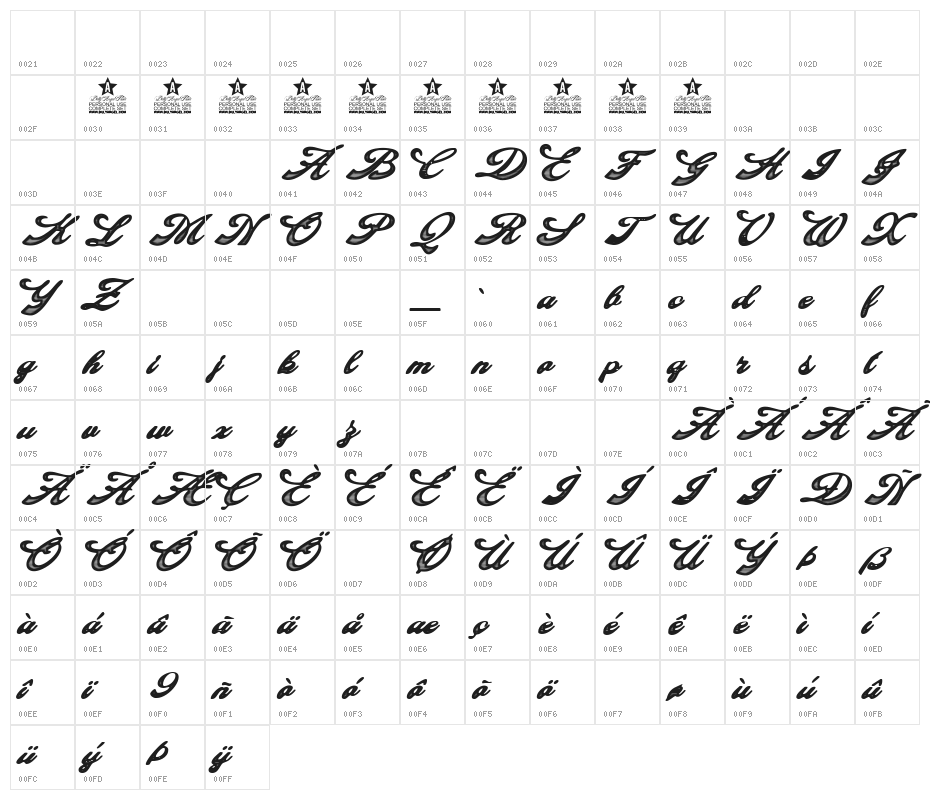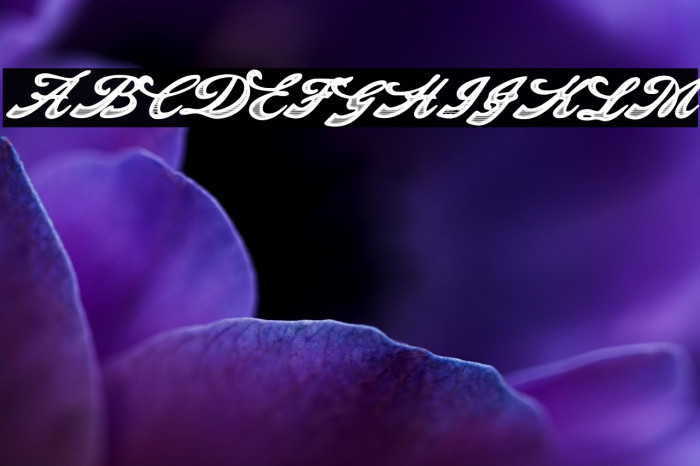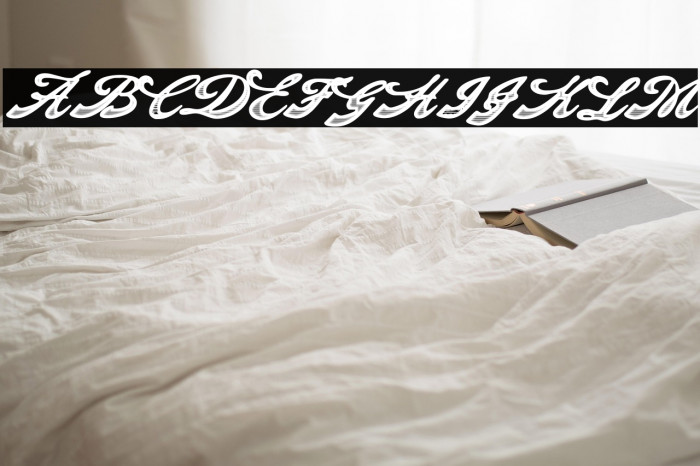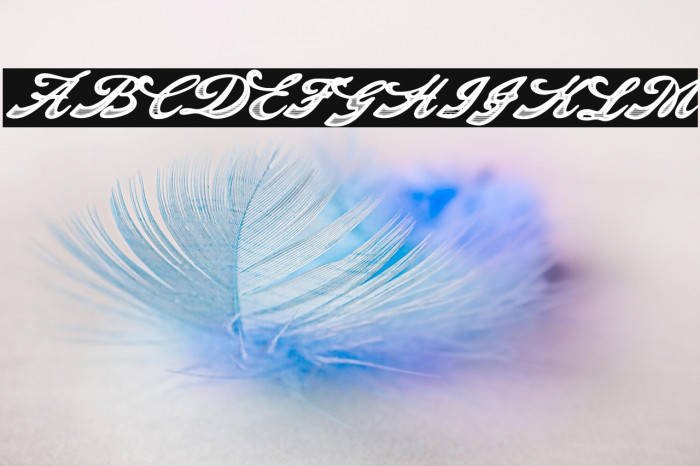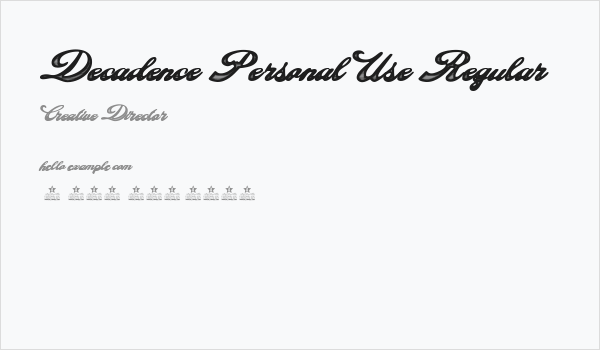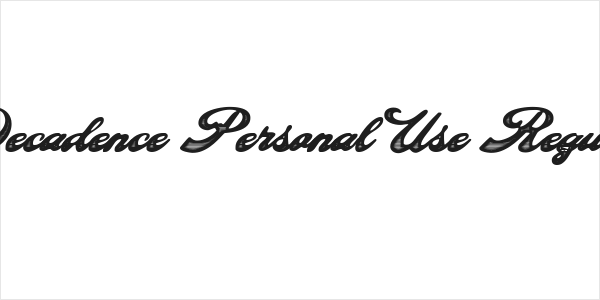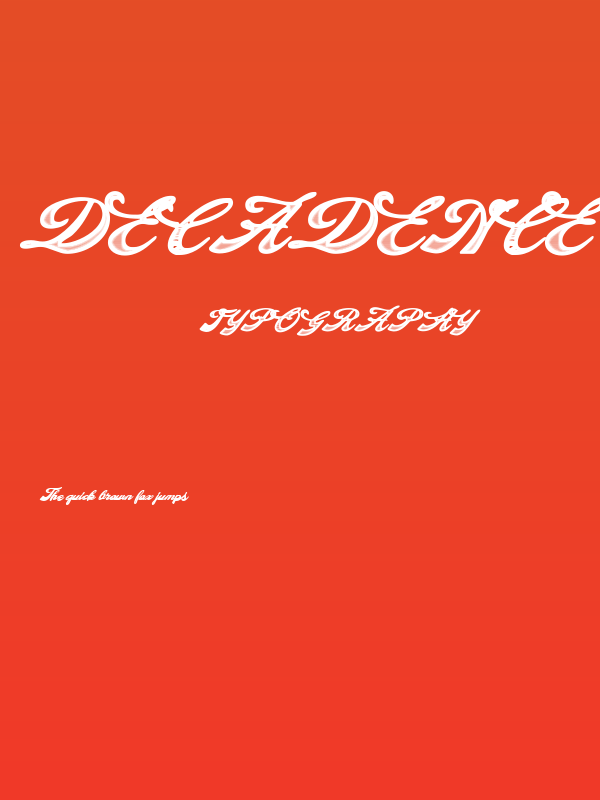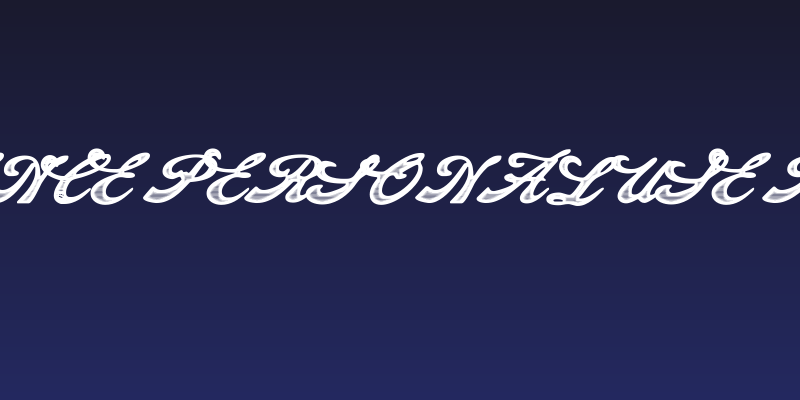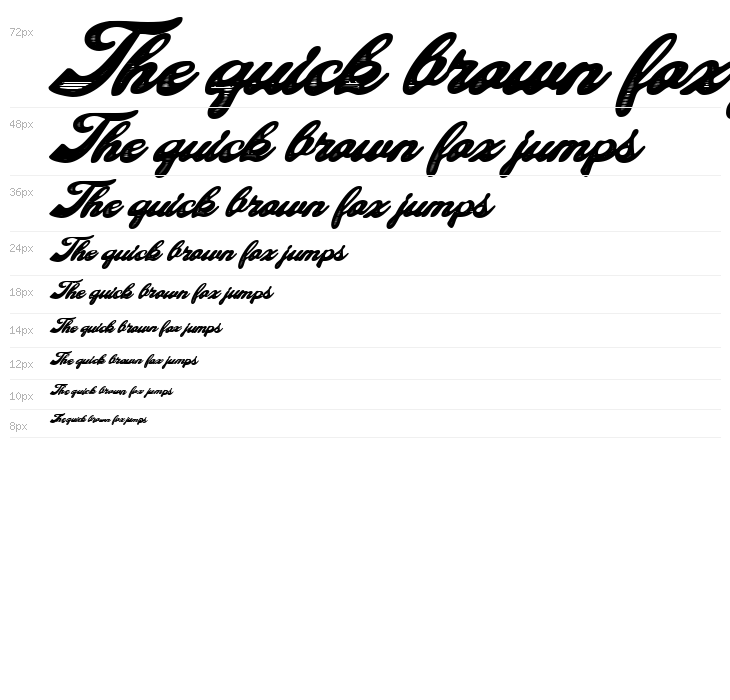
Decadence Personal Use Regular Font
Decadence Personal Use Regular Description
This font features an elegant and flowing script style, characterized by its cursive, interconnected letters. The strokes are bold and dynamic, with a distinctive slanted orientation that gives it a sense of movement and grace. The uppercase letters are ornate and decorative, while the lowercase letters maintain a consistent fluidity. The font exhibits a high contrast between thick and thin strokes, adding to its dramatic appearance. It is well-suited for creating a sophisticated and stylish look, making it ideal for invitations, branding, and decorative purposes.